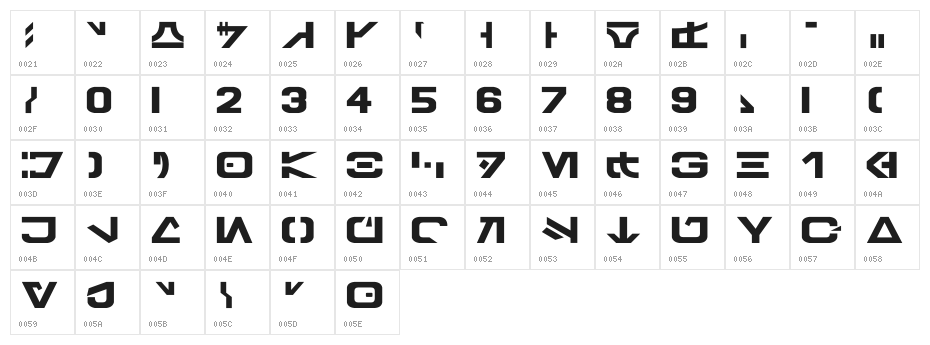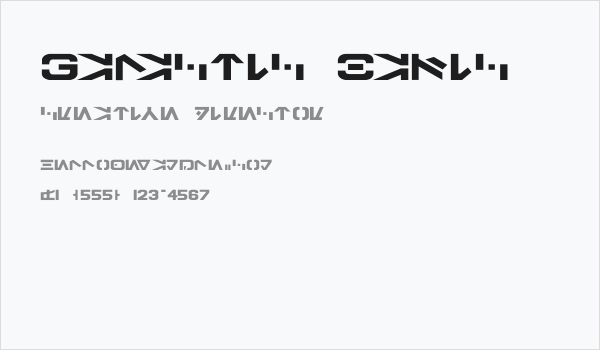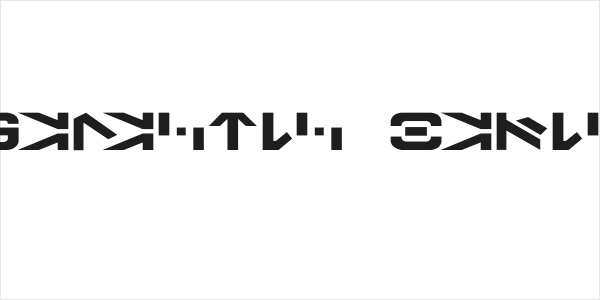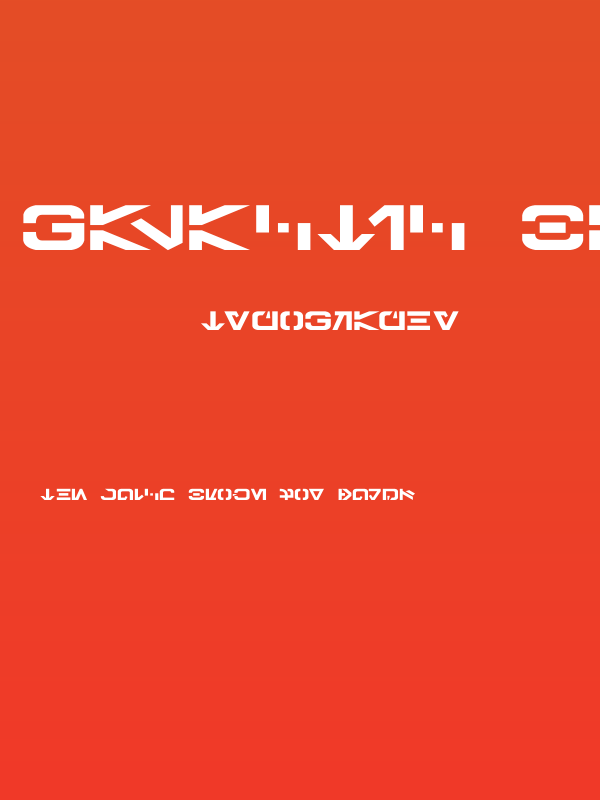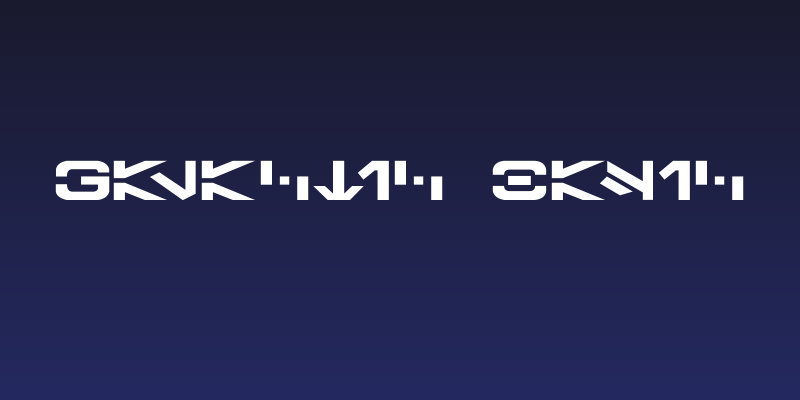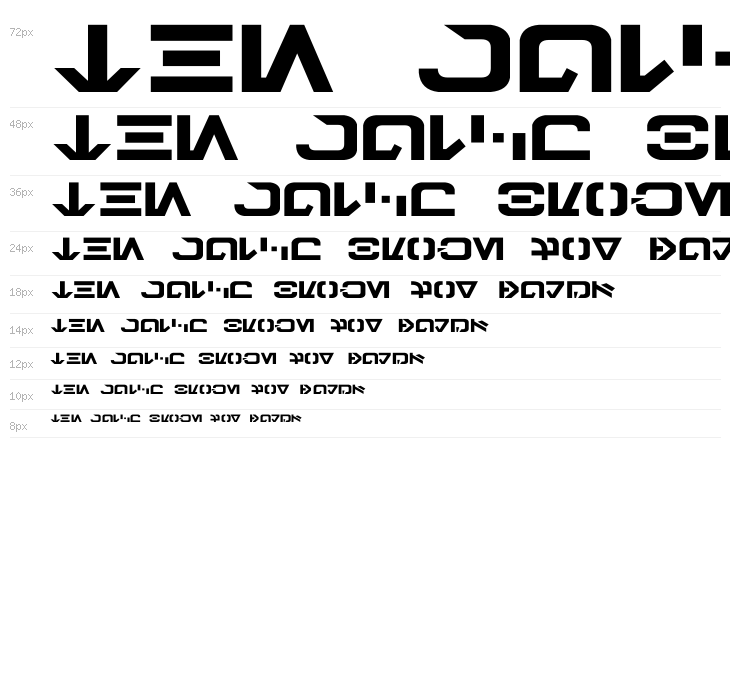
Galactic Basic Font
Galactic Basic Description
This font features a futuristic and geometric design, reminiscent of science fiction and space-themed aesthetics. The characters are bold and angular, with sharp edges and a distinct, otherworldly appearance. Each letter and number is crafted with a unique combination of lines and shapes, creating an alien-like script that is both intriguing and visually striking. The font's style is consistent throughout, maintaining a uniform thickness and a sense of symmetry. It is ideal for projects that aim to evoke a sense of mystery, technology, or intergalactic themes.
| Overall Style | Futuristic |
| Proposed Projects | Ideal for sci-fi movie posters, video game titles, futuristic branding, and space-themed event invitations. |